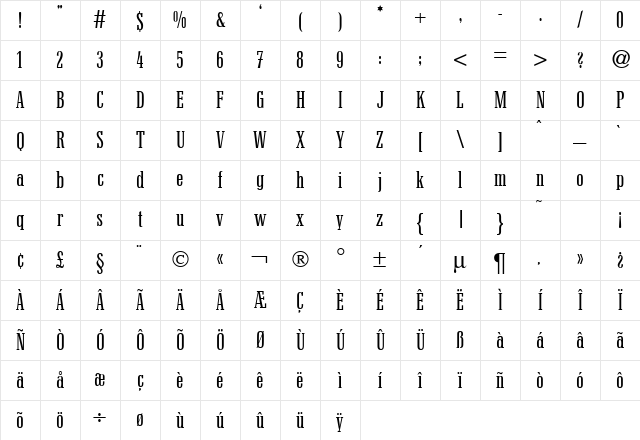
CanadaSmallDB Normal Free Font
CanadaSmallDB Normal
CanadaSmallDB Family
Design Context for CanadaSmallDB
CanadaSmallDB is a composed and adaptable typeface that performs quietly and consistently across a wide range of design contexts.